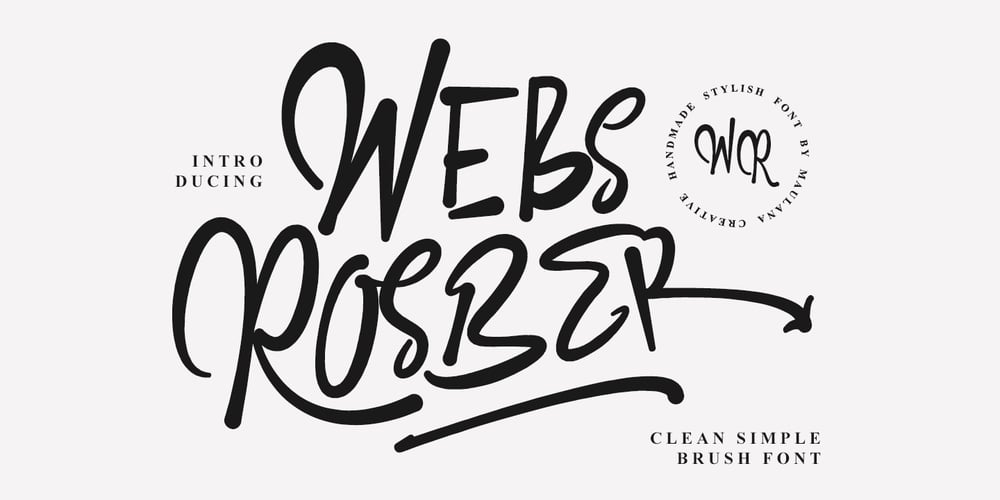
MC Webs Rosber
MC Webs Rosber font
MC Webs Rosber Font Family was designed by Gilang Maulana and published by Maulana Creative. MC Webs Rosber contains 1 styles and family package options. Give your designs an authentic brush handcrafted feel. “Webs Rosber Clean Simple Brush Font” is perfectly suited to signature, stationery, logo, typography quotes, website header, branding and more.Thanks for use this font.